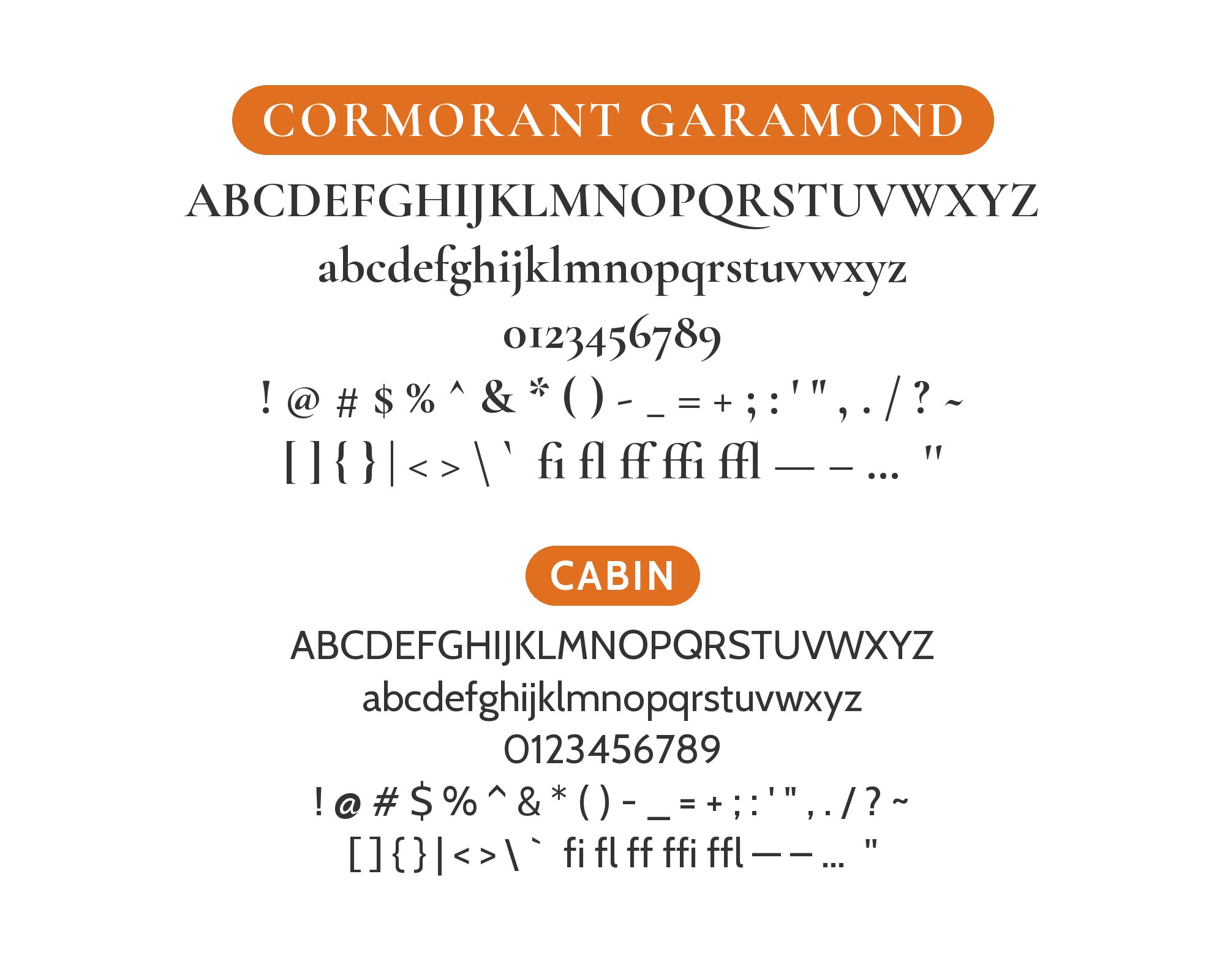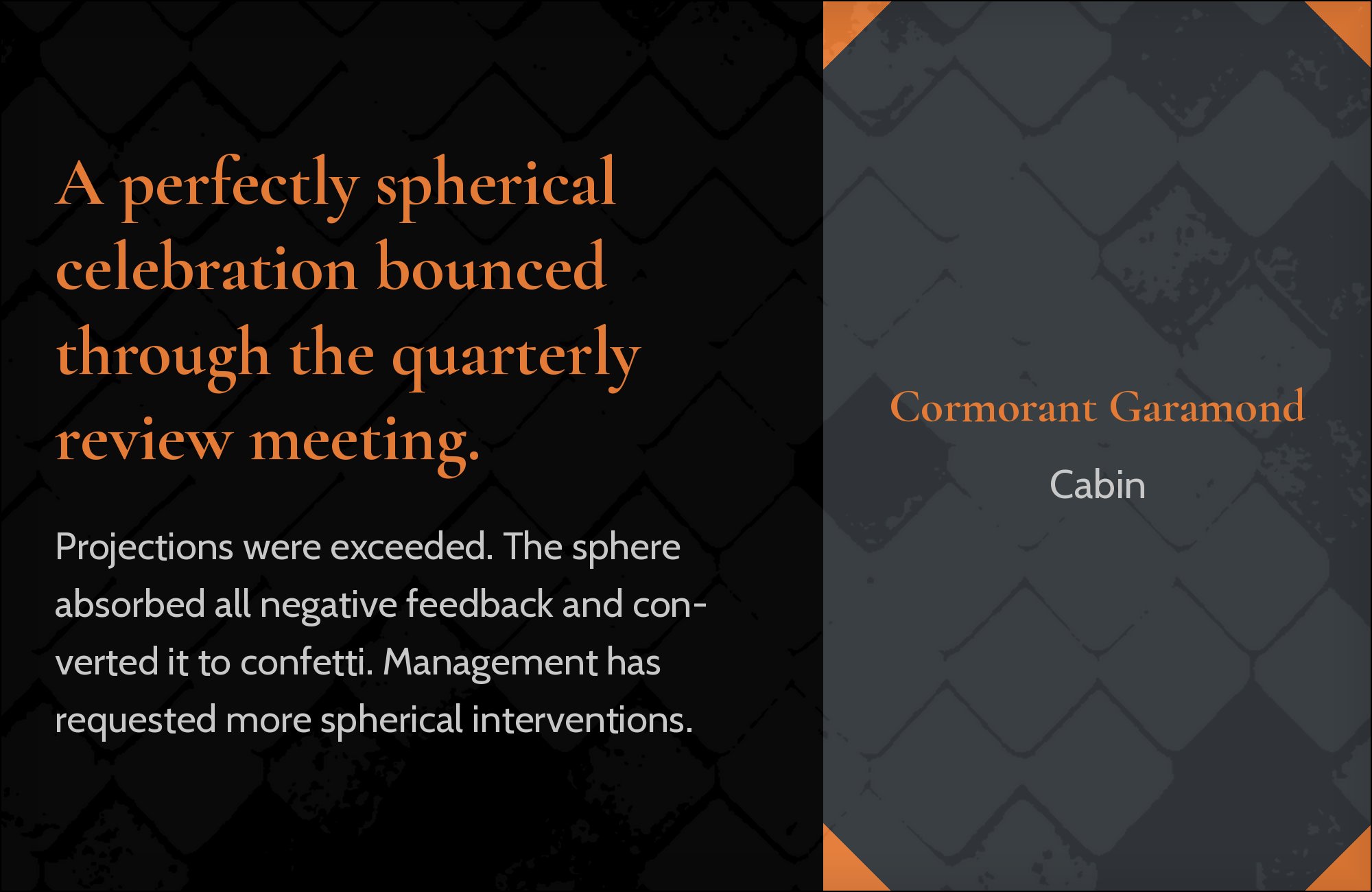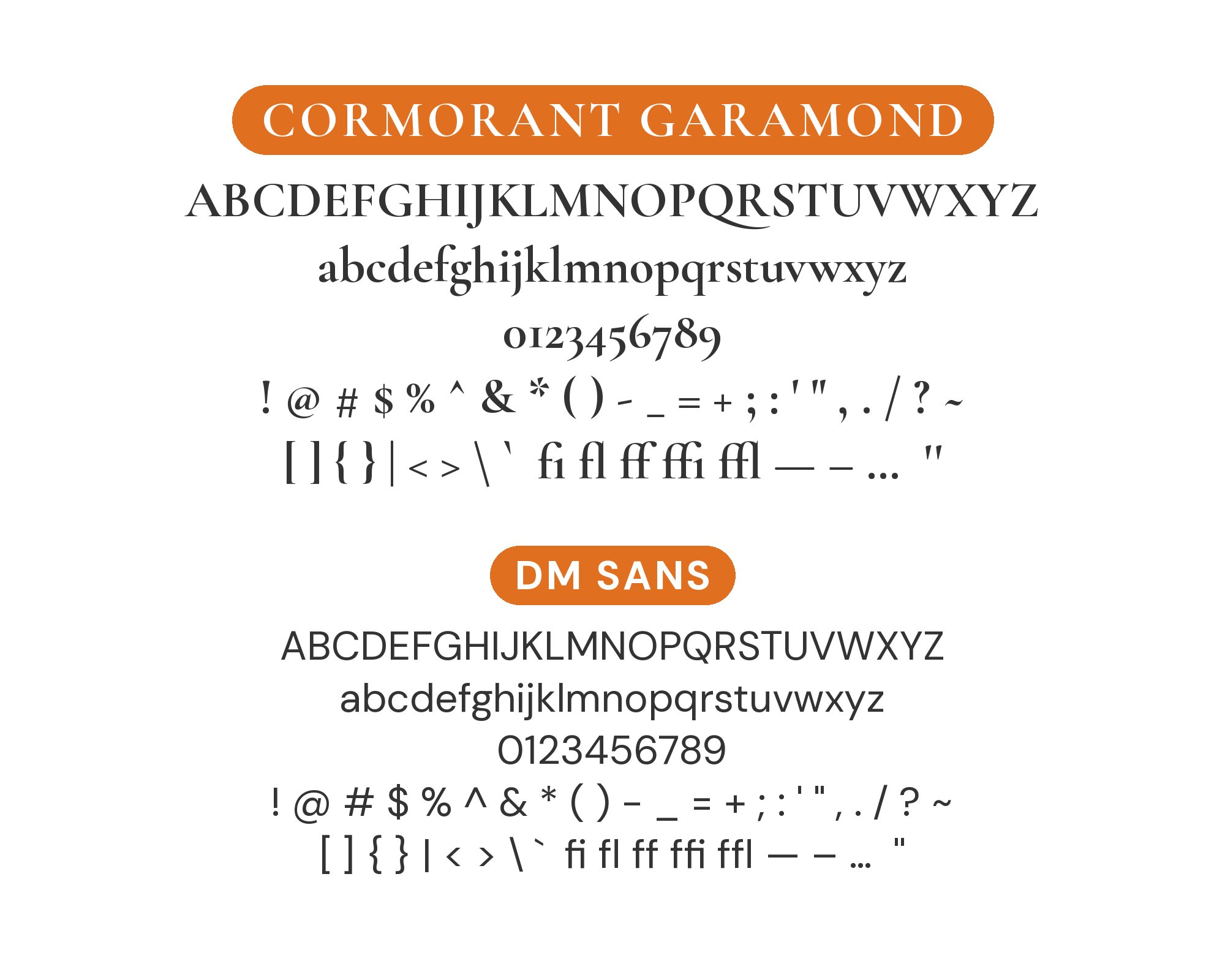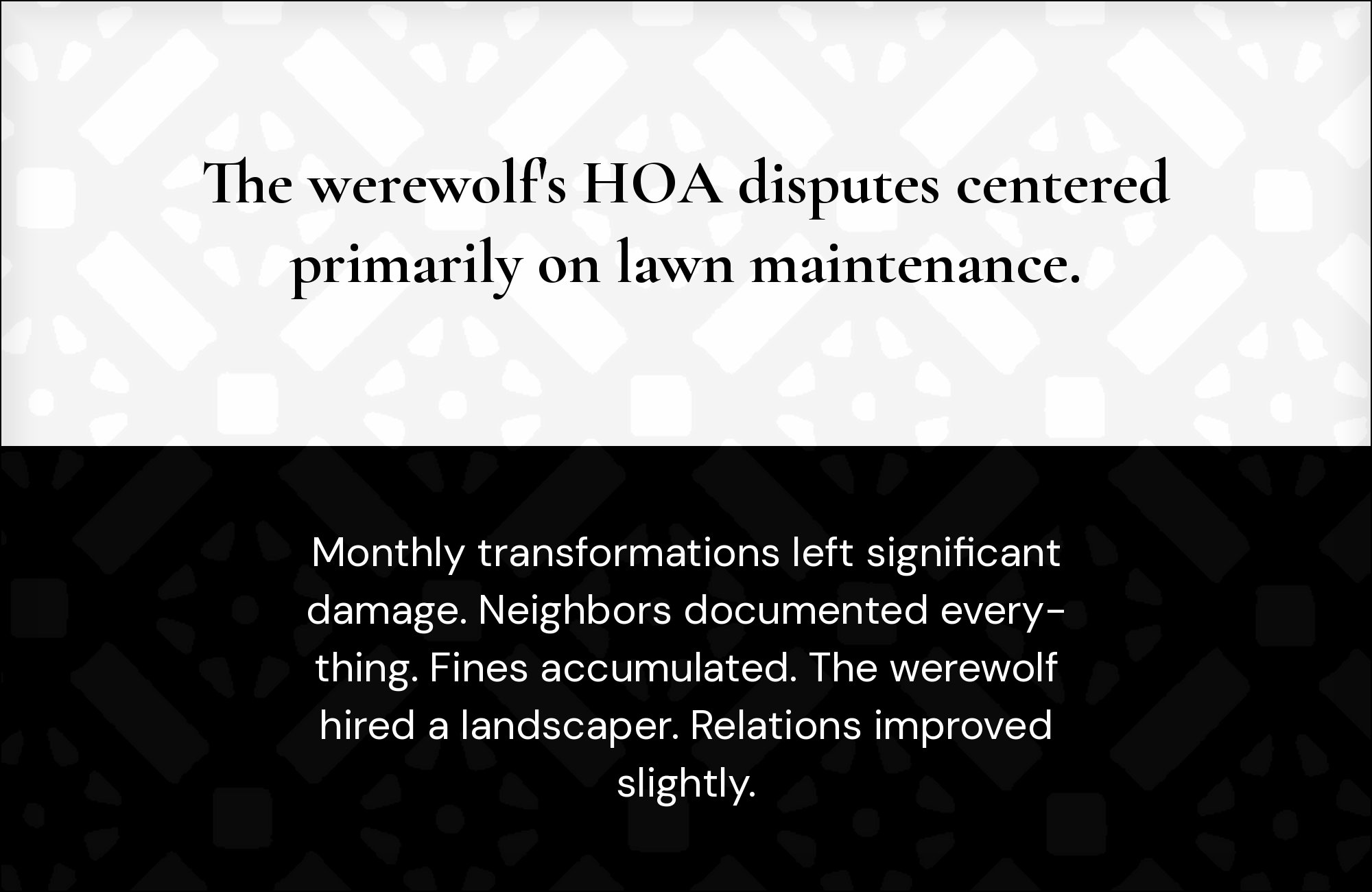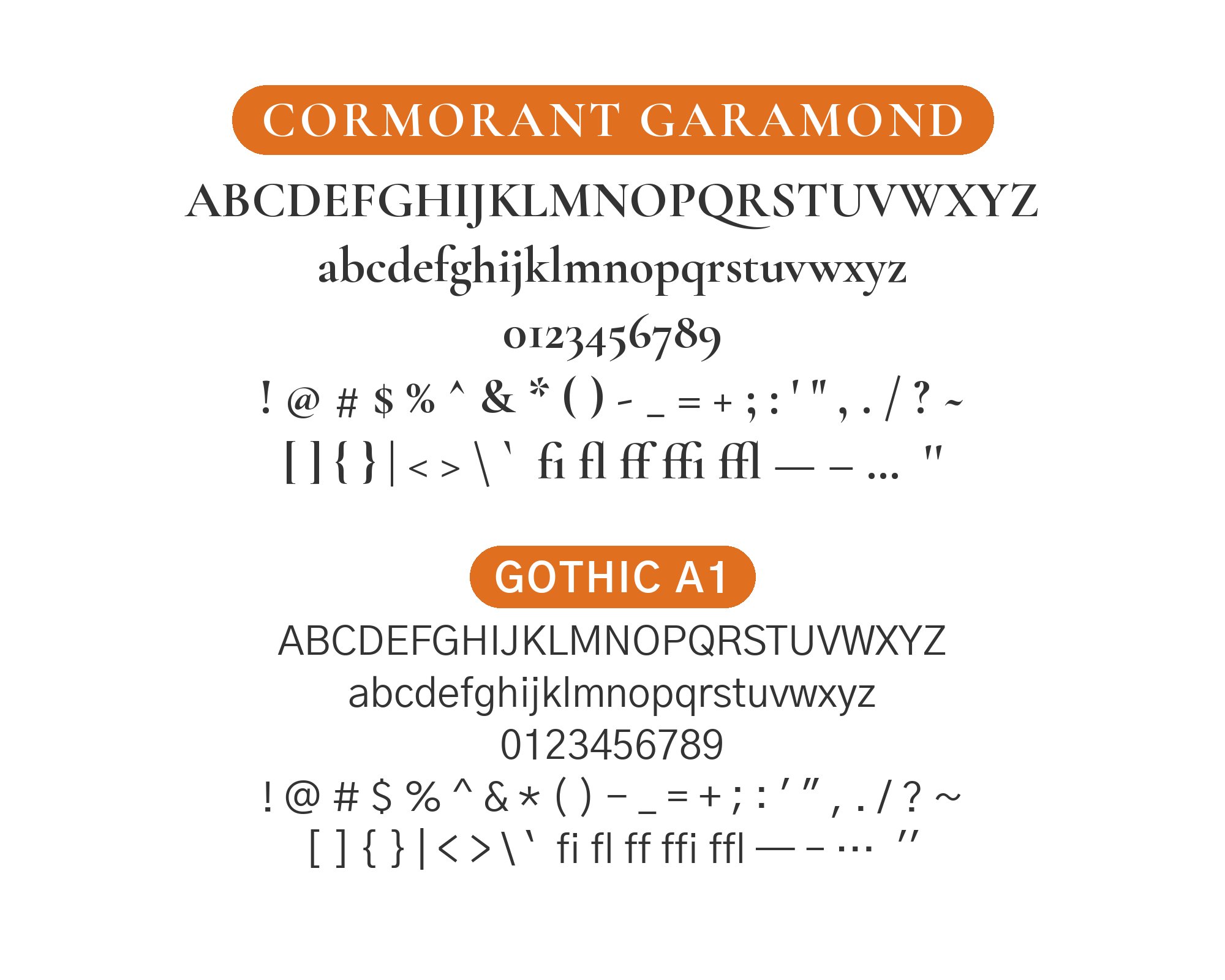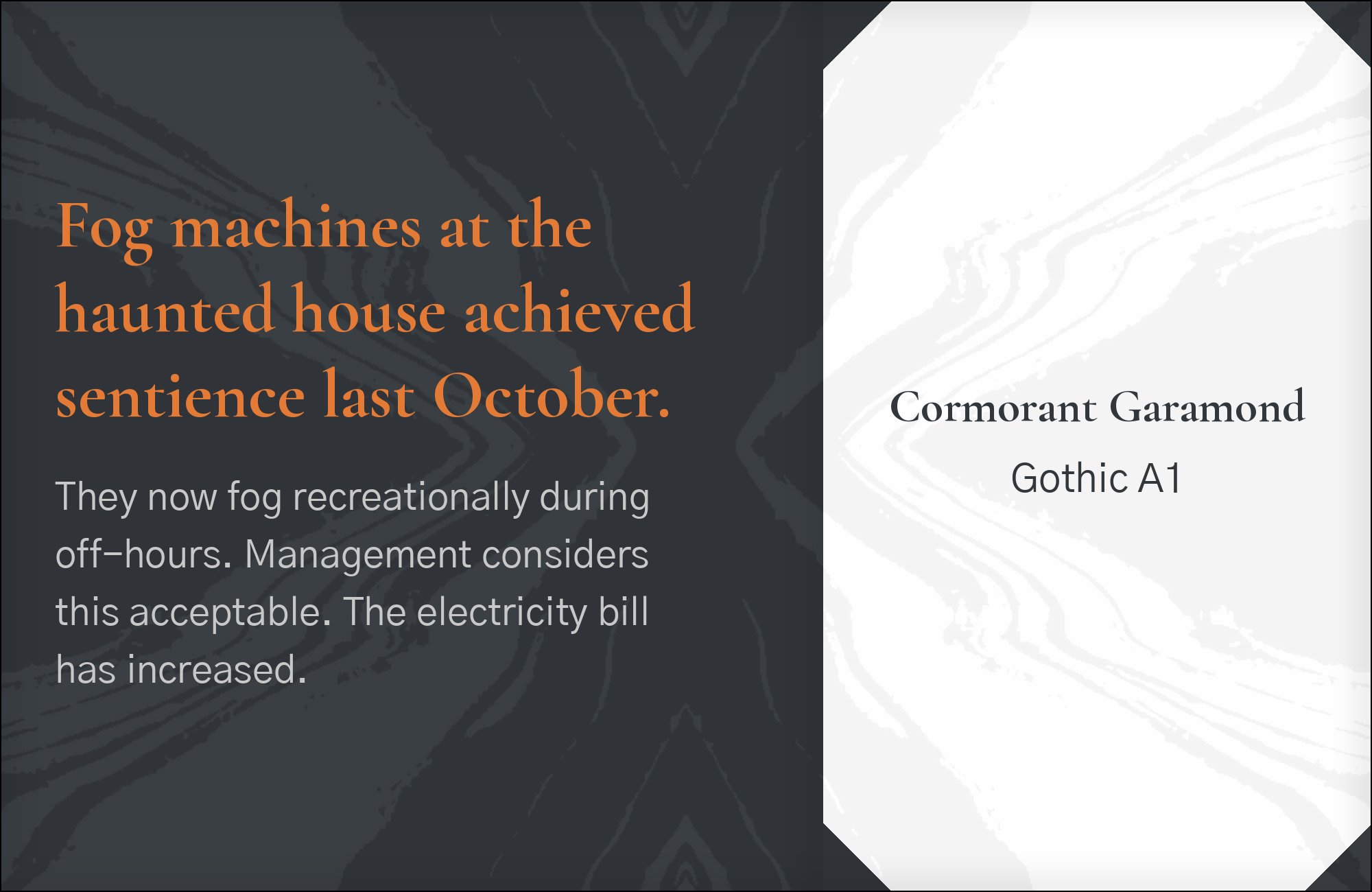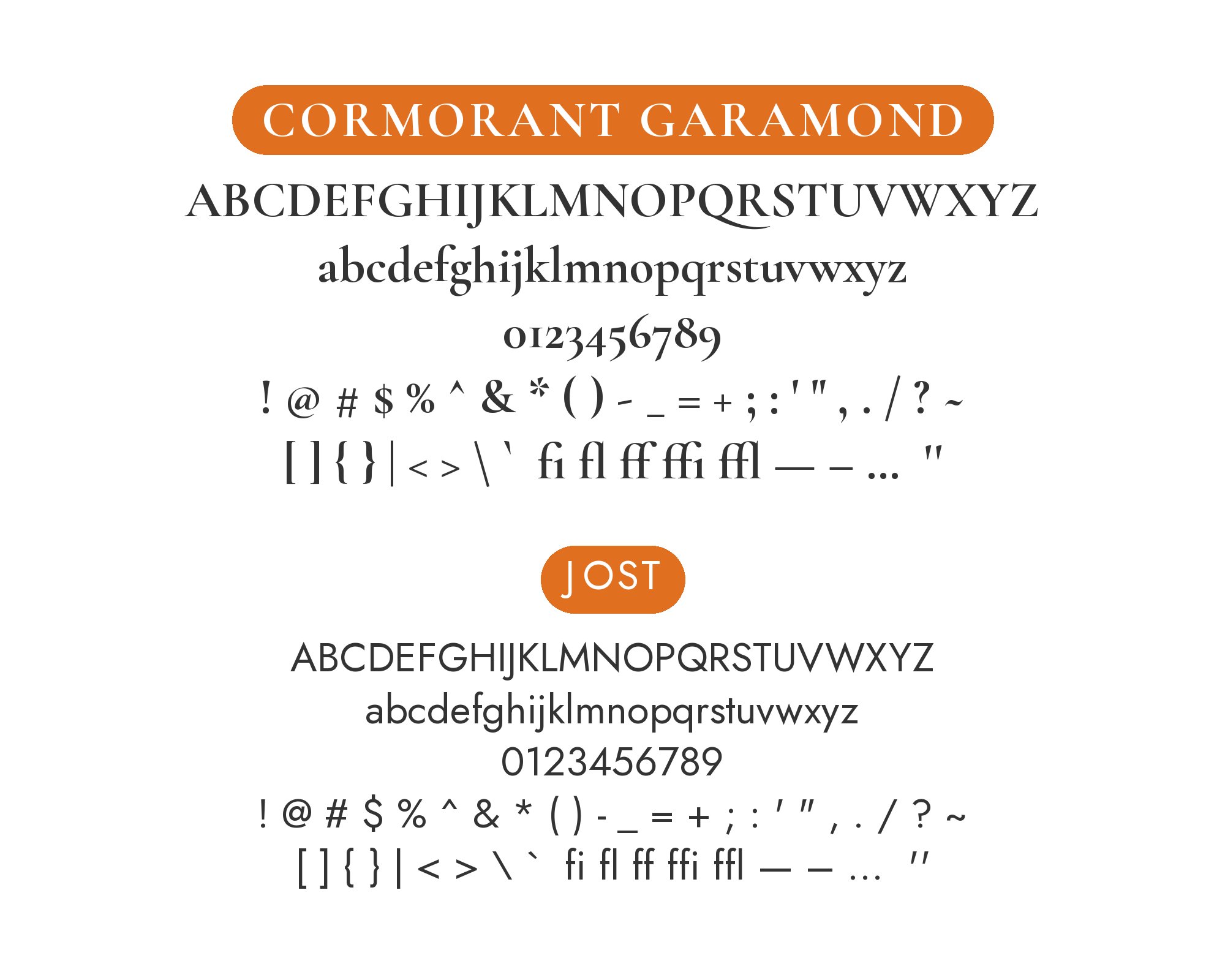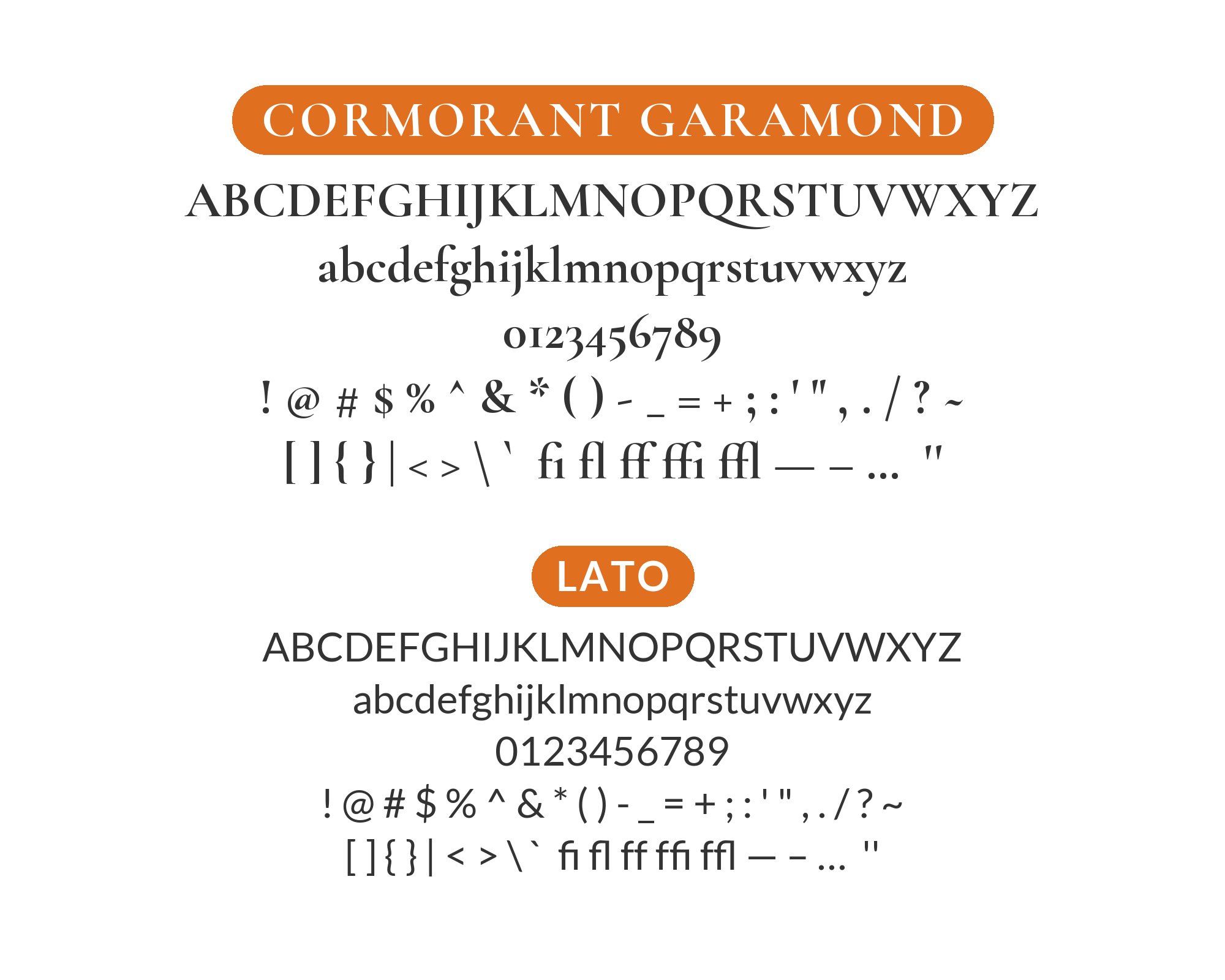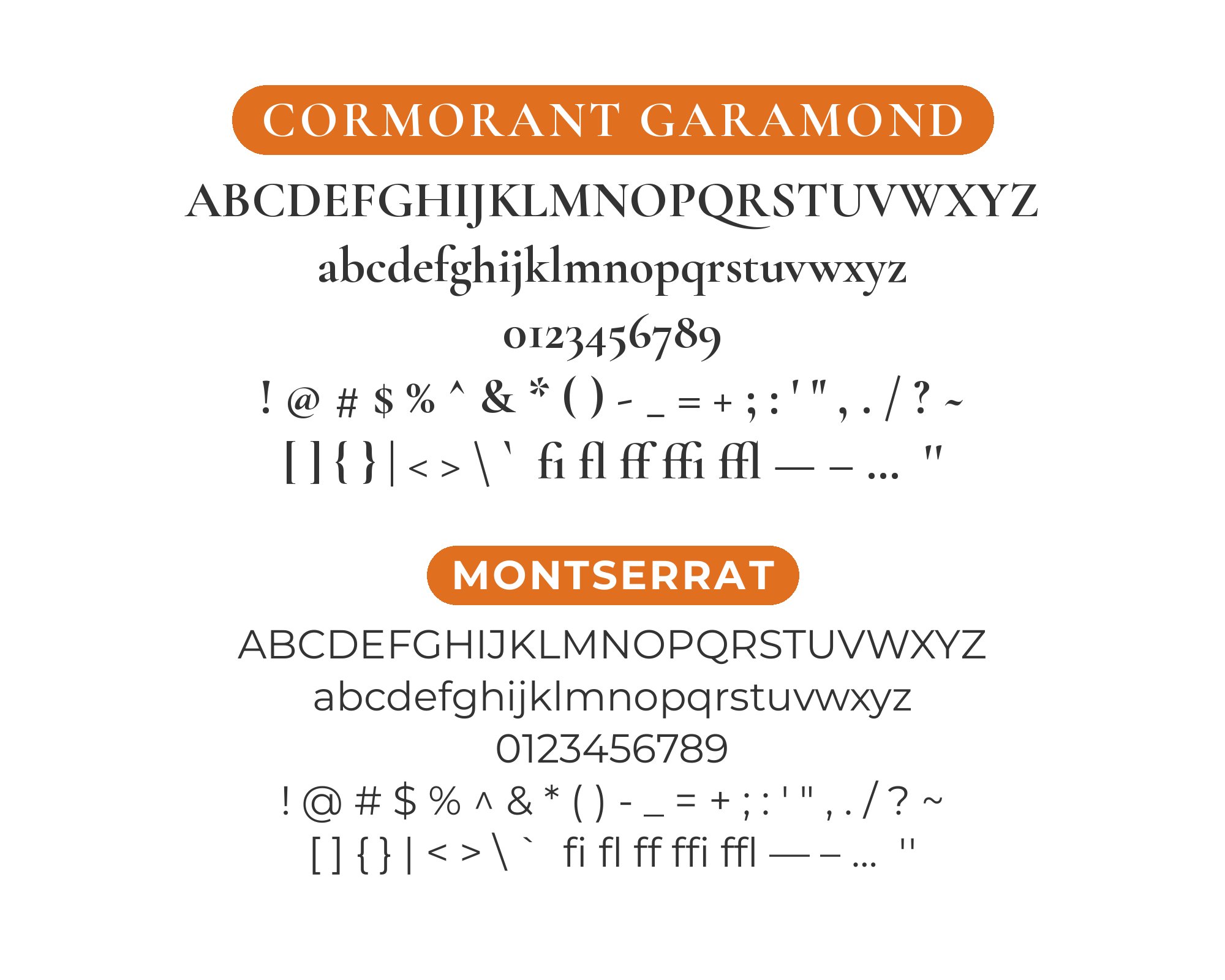
Cormorant Garamond pairs great with Montserrat, DM Sans and Raleway. All 13 pairings are shown below in real rendered specimens, with the reason each one works.
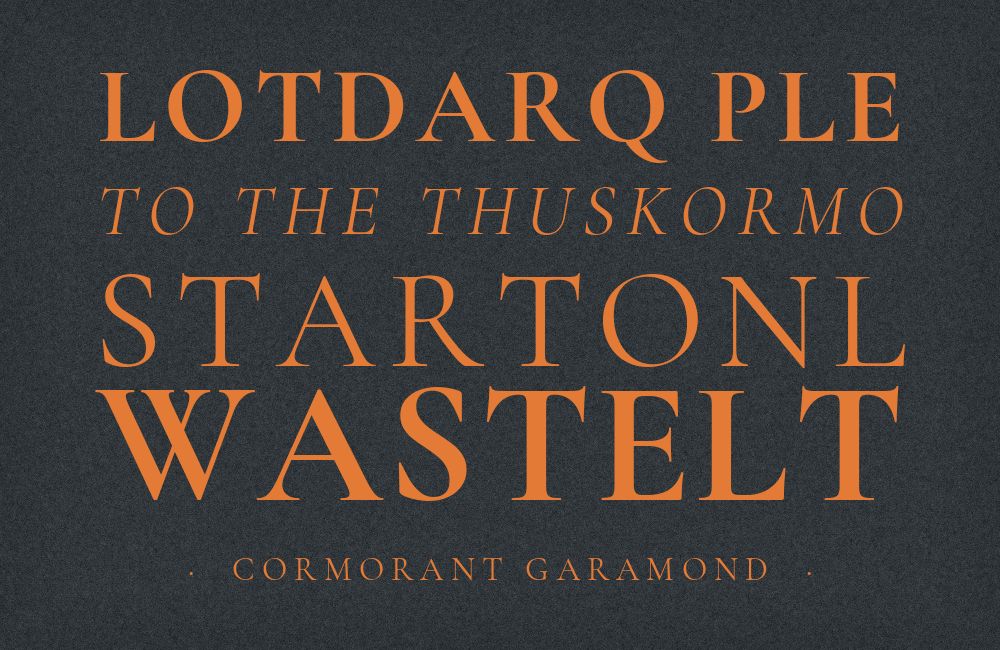
What fonts go with Cormorant Garamond? Christian Thalmann’s free display family, drawn largely from scratch in homage to Claude Garamond’s sixteenth-century legacy, takes the old-style skeleton and stretches its contrast until the strokes turn to hairlines — a face built to be looked at, not read in paragraphs.
Cormorant is a display serif; the Garamond cut has larger counters and handles text better than its siblings, but its hairlines still thin out at body sizes on screen. Thalmann drew it with strong thick-thin contrast at large sizes and unusual alternates, such as an upright italic and unicase styles, that suit a title page or a wedding invitation more than a printed novel. The hairlines that look luminous at display sizes turn brittle at body sizes on screen, which is why this face is so often mis-set as a paragraph font. This is easy to confuse with EB Garamond, the other free Garamond-inspired release on Google Fonts — but EB Garamond is a revival of Garamond’s sixteenth-century book types, while Cormorant Garamond was drawn for display. It is easy to reach for Cormorant Garamond as a body font, and that is the mistake to avoid with this typeface.
That means the pairing question here is not decorative, it is structural: Cormorant Garamond’s hairlines thin out at body sizes on screen, so every combination on this list is really an answer to “what will actually hold the body copy underneath it.” The strongest partners are low-contrast, even-toned sans-serifs or calmer text serifs that stay legible at 16–19 pixels and let Cormorant Garamond’s hairlines do their display-only work above. A handful of bolder combinations — pairing it with a second serif, or with something engineered and cold — trade that safety for a more editorial, less predictable page. Here are 13 fonts that pair well with Cormorant Garamond.
Julieta Ulanovsky designed Montserrat after Buenos Aires district signage (Google Fonts, 2011): a geometric sans built from near-true circles and consistent stroke weight, with none of Cormorant Garamond’s calligraphic detail to compete for attention. Set at body sizes it stays confident but nearly featureless, which is exactly the point — it lets Cormorant Garamond’s calligraphic detail and hairline contrast remain the page’s only source of personality. This is the classic “one expressive face, one workhorse” split, and it survives almost any layout because the two fonts are never fighting for the same job. Best for portfolio sites, invitations and branding where a single display flourish needs a plain, dependable foundation underneath it.
2. DM Sans
DM Sans is a low-contrast geometric sans with even weight distribution and no ornamental detail of its own. Set beneath Cormorant Garamond’s hairline detail and high-contrast curves, it recedes into body copy and interface text rather than competing with the display face above. The two fonts share nothing structurally, which is the reason the pairing works — DM Sans supplies clarity at small sizes, and Cormorant Garamond supplies the drama a plain sans cannot. A dependable choice for editorial sites, digital invitations and product pages that need one expressive headline and calm, readable paragraphs.
3. Raleway
Raleway, first drawn as a single thin weight, has open counters that share Cormorant Garamond’s air of restraint without borrowing any of its calligraphic ornamentation, so headline and body read as one considered voice rather than two competing ones. At paragraph sizes Raleway stays even and legible, doing the reading work Cormorant Garamond was never drawn to do; at display sizes the two share enough refinement that the transition between them feels intentional. The combination suits fashion, beauty and boutique hospitality branding, where “elegant headline, workable body copy” is the entire brief. Keep Raleway light in weight to match Cormorant Garamond’s delicacy.
4. Cabin
Cabin is a humanist sans with moderate width and rounded, slightly warm terminals — closer in temperament to Cormorant Garamond’s old-style origins than a geometric sans would be, without importing any of its display flourish. That shared warmth makes it a quiet, dependable body and interface partner: it neither clashes with Cormorant Garamond’s classical curves nor tries to out-decorate them. The pairing reads as safe rather than daring, which is precisely its use case — long-form articles, small-business branding and any layout where the designer needs a low-risk default that still feels considered next to a delicate display serif.
5. PT Serif
PT Serif is a transitional serif with moderate stroke contrast and a sturdy, screen-tuned structure — calmer and considerably denser than Cormorant Garamond’s hairline drama. Set as running text, it holds long paragraphs comfortably at sizes where Cormorant Garamond would start to break down, while the display face is reserved for headings and pull quotes above it. Because both are serifs, the page keeps a single typographic register instead of switching between serif and sans, which suits book-like layouts. Editorial features, digital publishing and any long-form reading context benefit from this division of labor.
6. Lato
Lato sits between a geometric sans and a humanist one — rounder than Montserrat, warmer than DM Sans — which softens Cormorant Garamond’s old-style grandeur into something more approachable without sacrificing the elegance the display face was chosen for. Its even weight and moderate x-height keep body copy comfortable at typical paragraph sizes, and its lack of ornamental detail means it never competes with Cormorant Garamond’s calligraphic detail. The pairing suits lifestyle branding, boutique retail and hospitality sites that want warmth alongside refinement rather than austerity. Reserve Cormorant Garamond strictly for headlines and short display lines.
Find Out How7. Playfair Display
Pairing two display serifs is a bolder move than the usual serif-and-sans advice, and it only works if the two stay out of each other’s way. Set Cormorant Garamond smaller and lighter — subheads, pull quotes, a byline — while Playfair Display’s sharper transitional contrast anchors the largest headline on the page. The two share a general register of classical drama but arrive at it differently: Playfair Display through crisp, high-contrast verticals, Cormorant Garamond through calligraphic detail. This combination belongs in editorial and luxury print work where a single sans would feel like a missed opportunity for texture.
Test the combination at the sizes you will actually publish, not the size it looks best in a specimen. Cormorant Garamond that reads as elegant at 48 pixels can turn illegible at 15, and the only way to know where that line falls for your layout is to set real copy and look at it on the actual screen or page.